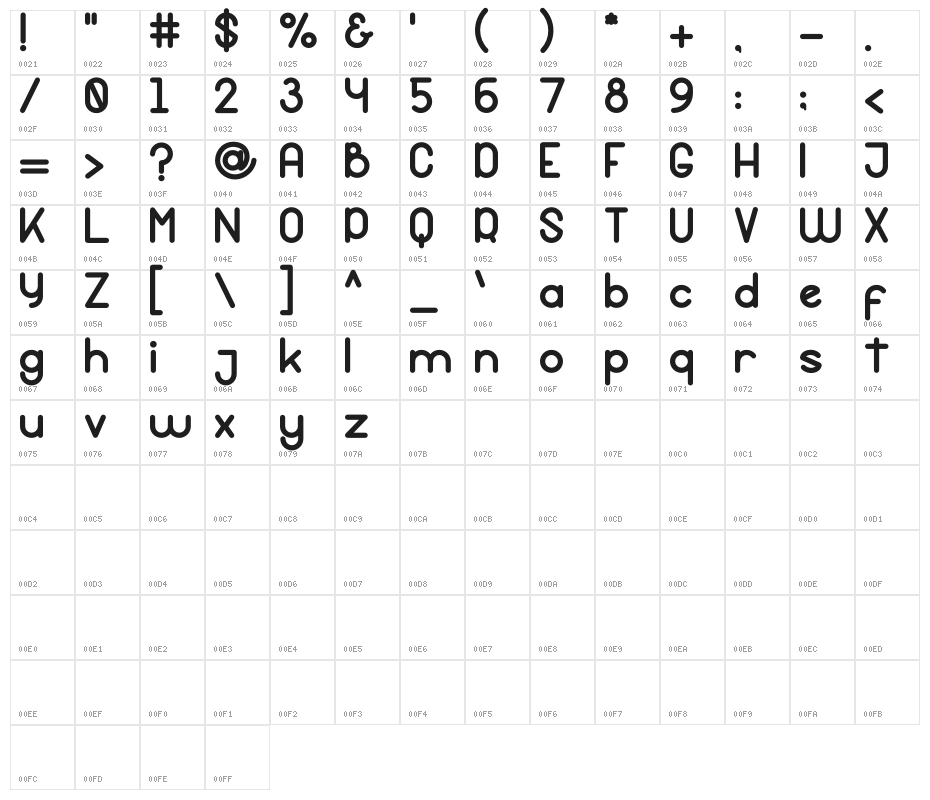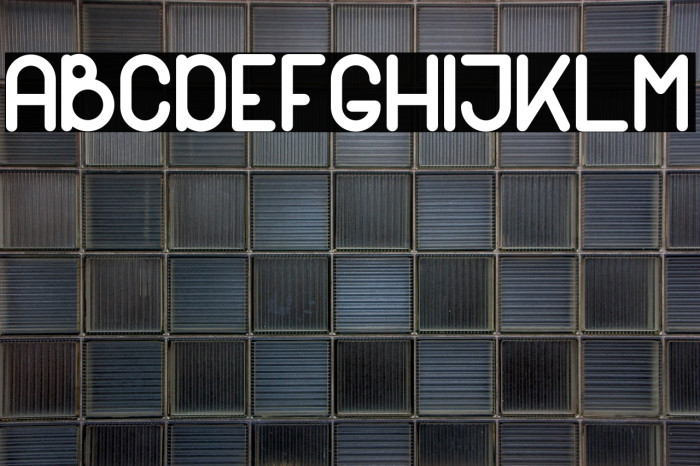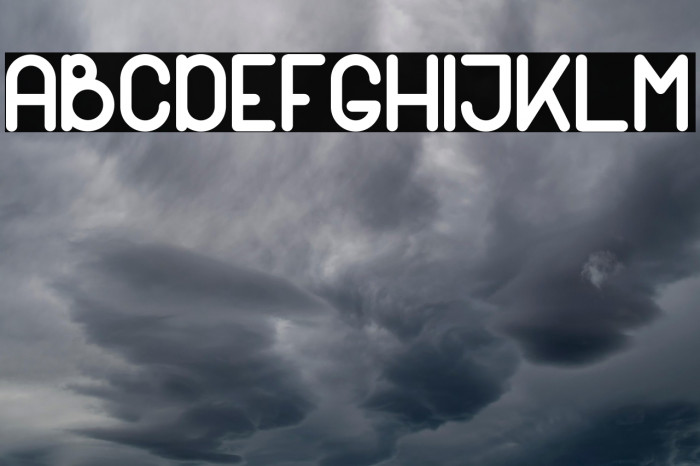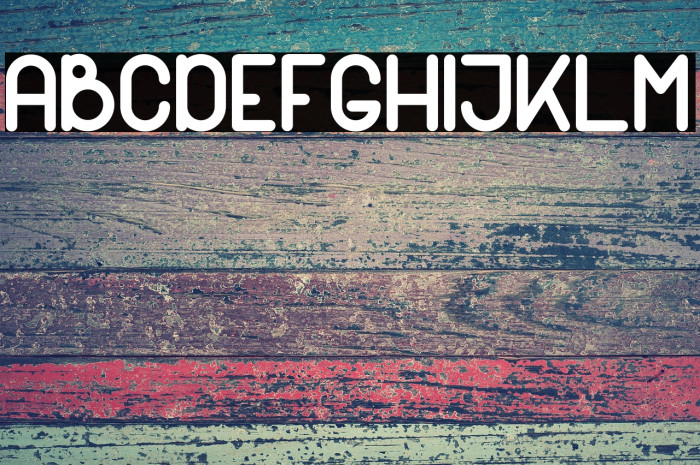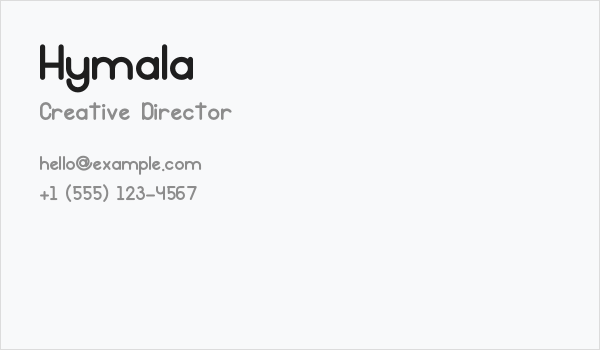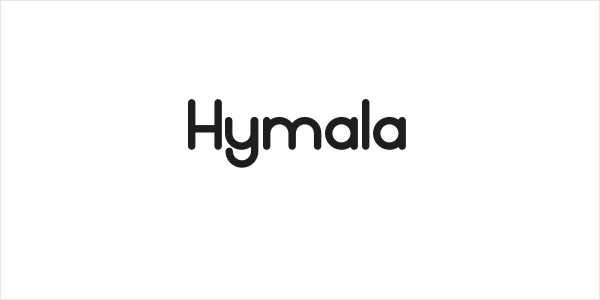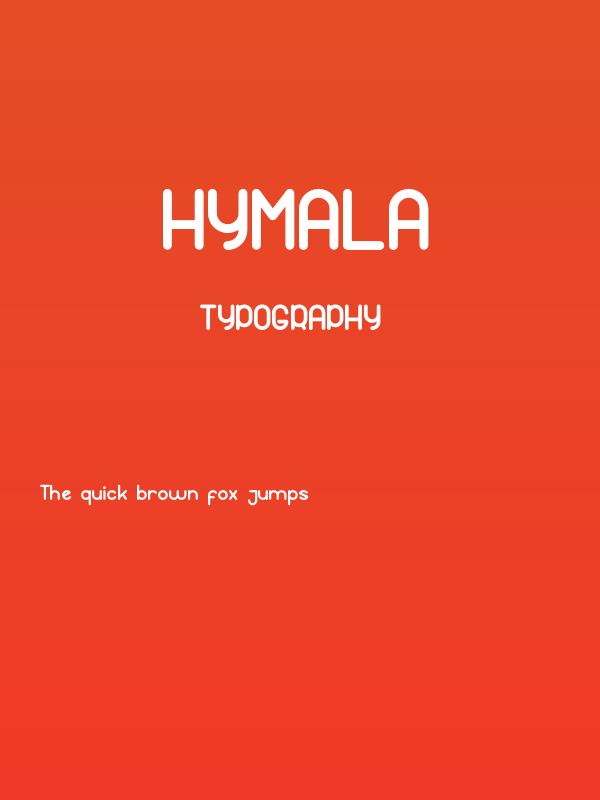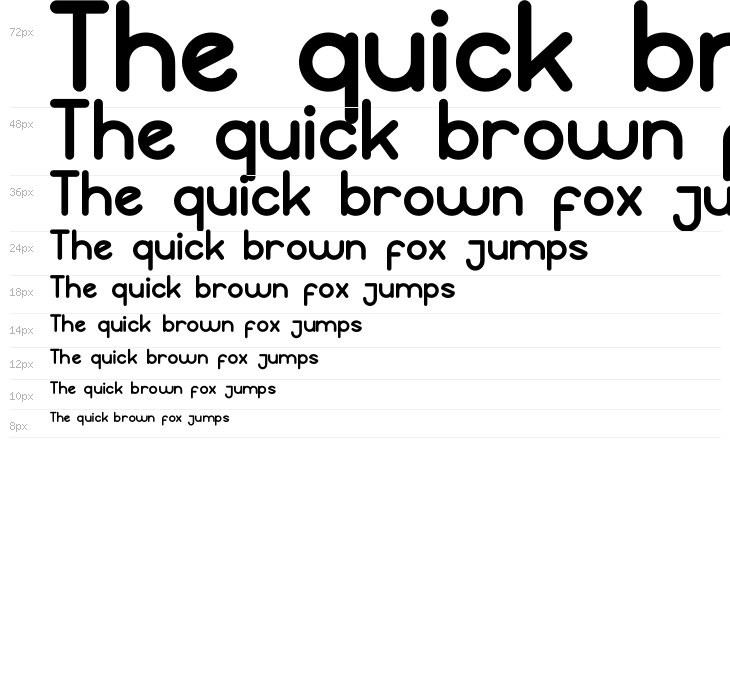
Hymala Font
Hymala Description
This font features a playful and rounded design, characterized by its smooth curves and consistent stroke width. The uppercase and lowercase letters maintain a uniform height, creating a harmonious appearance. The numerals and special characters follow the same rounded style, ensuring visual consistency across all elements. The font's friendly and approachable look makes it suitable for a variety of creative projects. Its simplicity and clarity enhance readability, making it an excellent choice for both digital and print media. The overall design is modern yet retains a touch of whimsy, appealing to audiences of all ages.
| Use Case | Headlines, Logos, Social Media |
| Proposed Projects | Ideal for children's books, playful branding, casual invitations, and social media graphics. |